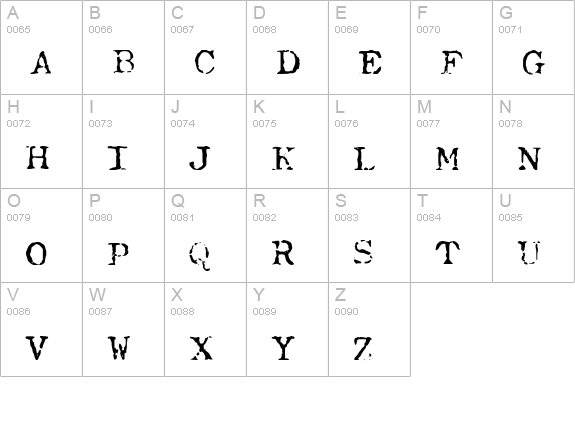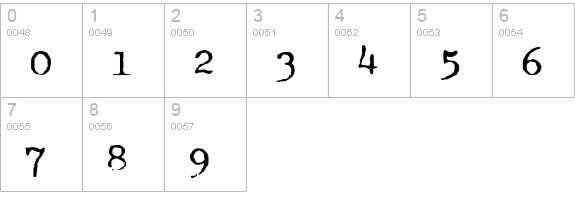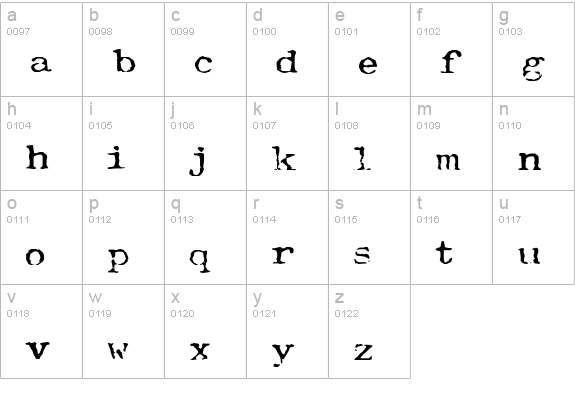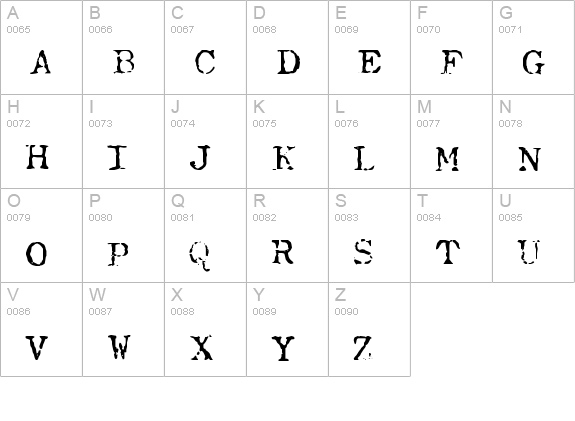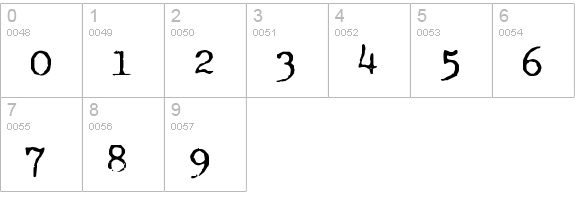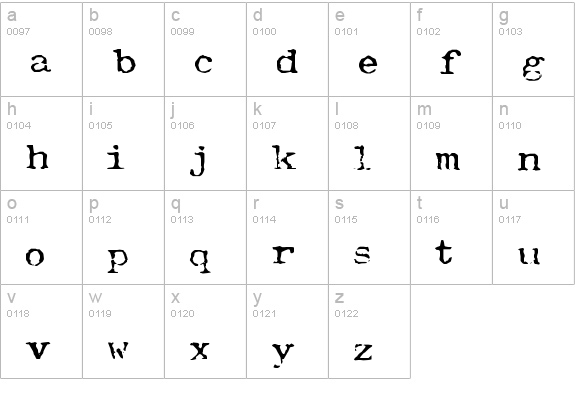
The Typewriter-Font (Royal 200) font is a timeless and classic typeface that brings back the nostalgia of vintage typewriters. With its distinct and authentic look, this font captures the charm and elegance of traditional typewritten texts. The Typewriter-Font (Royal 200) font is meticulously designed to replicate the mechanical precision of typewriter keys, ensuring each character is perfectly aligned and evenly spaced. Every keystroke creates a satisfyingly crisp and clean impression, making it a perfect choice for projects requiring a touch of old-school sophistication. This font is not only aesthetically pleasing, but it also adds a touch of authenticity to any design. Whether you're working on a retro-themed poster, a vintage-inspired logo, or even a creative writing project, the Typewriter-Font (Royal 200) font will transport your audience back to a time when typewriters were the epitome of communication technology. And the best part? The Typewriter-Font (Royal 200) font is available for free! You can easily download it from FontsMarket.com, a trusted source for high-quality and diverse font collections. This means you can effortlessly add this stunning typewriter font to your creative arsenal without spending a dime. So, if you're looking to infuse your designs with a touch of nostalgia and elegance, the Typewriter-Font (Royal 200) font is a must-have. Download it today from FontsMarket.com and embark on a typographical journey that bridges the gap between the past and the present.